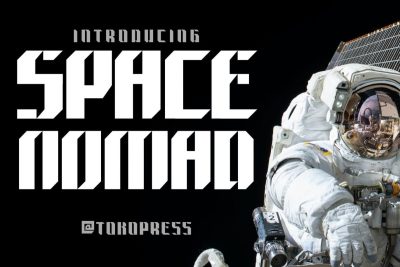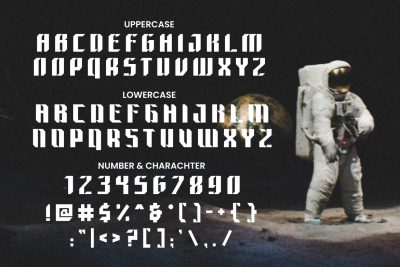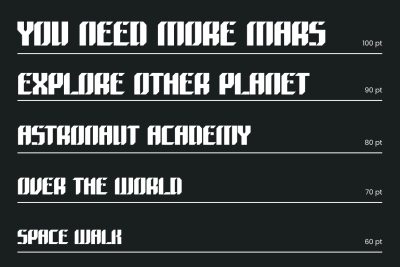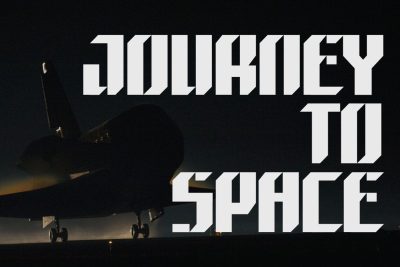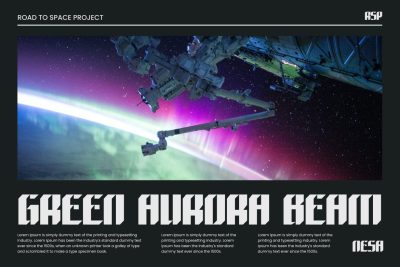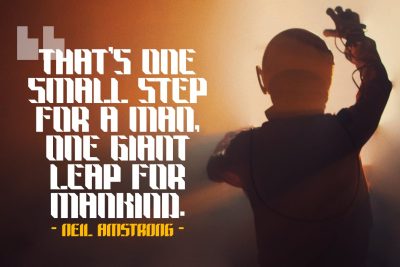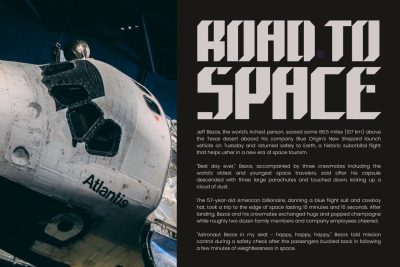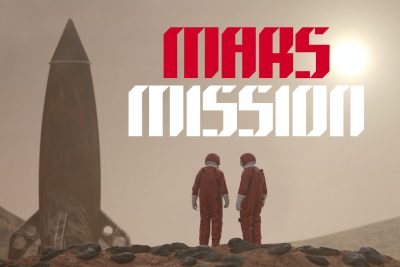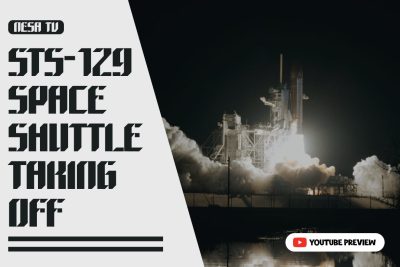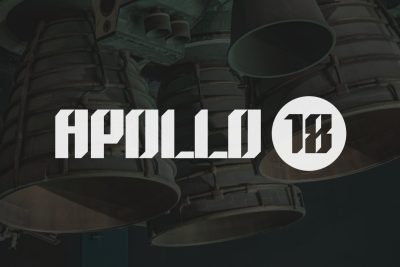
Futuristic Font Space Nomad redefines bold typography with its cosmic-inspired aesthetic. Designed for creative professionals, this font combines sharp angles and geometric precision to create a futuristic vibe that instantly captivates. Its distinctive design pays homage to space exploration and science fiction, making it perfect for branding, digital content, and sci-fi themes.
The structured letterforms of Space Nomad evoke a sense of adventure and innovation. Each character features angular edges and dynamic shapes that reflect the boldness of interstellar exploration. Whether youโre designing a tech logo, a video game interface, or a science-themed event banner, this font offers a captivating visual edge.
Moreover, the font maintains excellent readability despite its futuristic design. Its balance of bold lines and open spaces ensures versatility across various design applications. As a result, Space Nomad seamlessly bridges creativity and practicality, making it an essential tool for forward-thinking designers.
Perfect for Sci-Fi and Tech-Focused Projects
Space Nomad is ideal for projects that require a modern, space-inspired look. For instance, it works exceptionally well for futuristic branding campaigns, digital advertisements, and social media visuals. Additionally, its bold style makes it a standout choice for movie posters, book covers, and other sci-fi-related content.
The fontโs versatility extends to tech-focused industries, where it can elevate presentations, product packaging, or website headers. With Space Nomad, designers can convey innovation, creativity, and a sense of adventure in every project. Its clean yet dynamic structure ensures adaptability, whether used in minimalistic designs or highly detailed layouts.
Because of its unique aesthetic, Space Nomad resonates with audiences who love science fiction, technology, and modern design. It offers a perfect balance between futuristic style and functional clarity, empowering designers to create impactful visuals with ease.
Elevate Your Designs with Futuristic Font Space Nomad
Futuristic Font Space Nomad inspires creativity by offering a bold, modern typeface that stands out in any context. Its sharp edges and dynamic geometry make it a powerful choice for designers aiming to push creative boundaries.
Whether crafting a space-themed product, developing tech branding, or designing sci-fi artwork, Space Nomad provides the tools to make your vision a reality. By combining futuristic aesthetics with practical usability, this font helps you communicate your message with confidence and style.
Let Space Nomad transform your projects into visual masterpieces that capture the imagination. Choose this typeface to bring a touch of the cosmos to your next design endeavor.